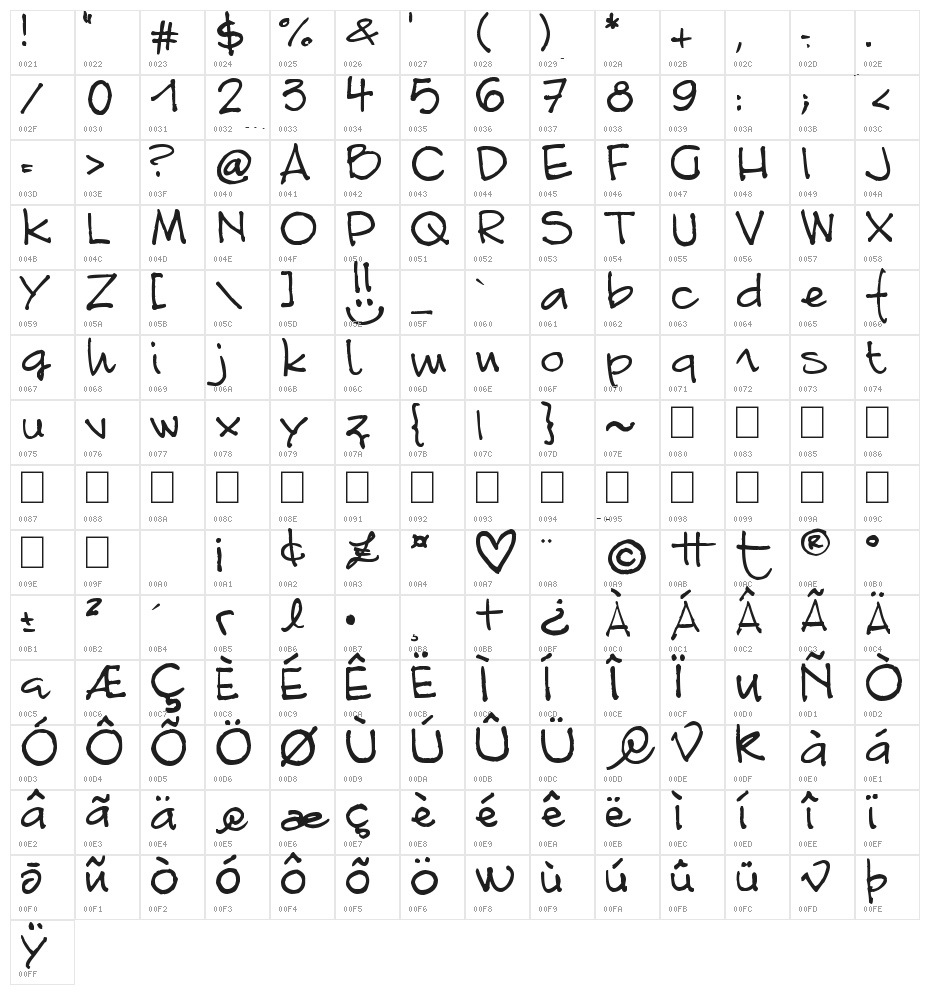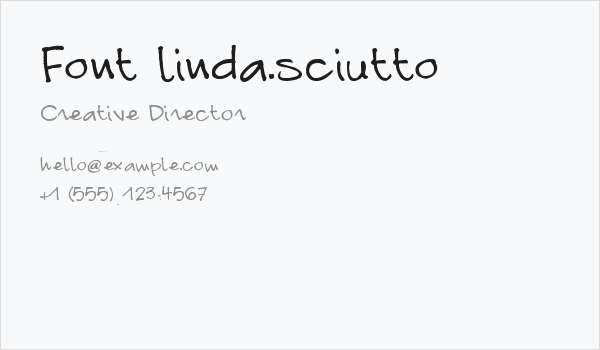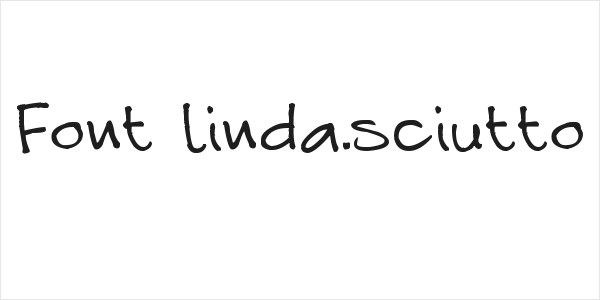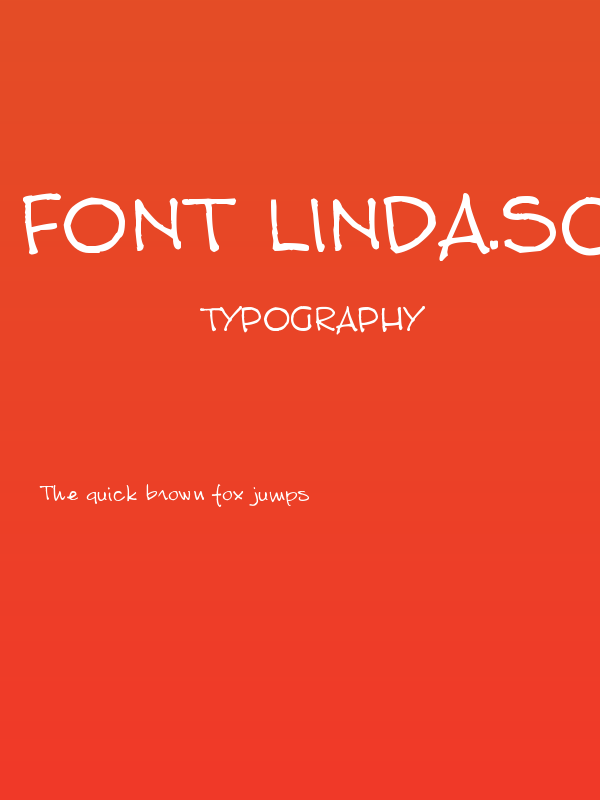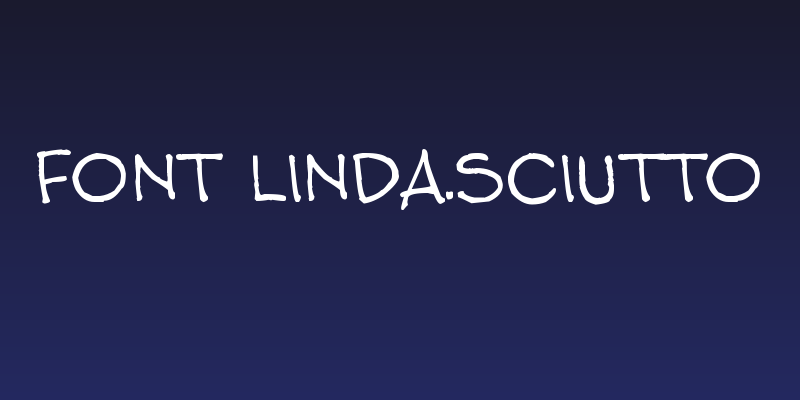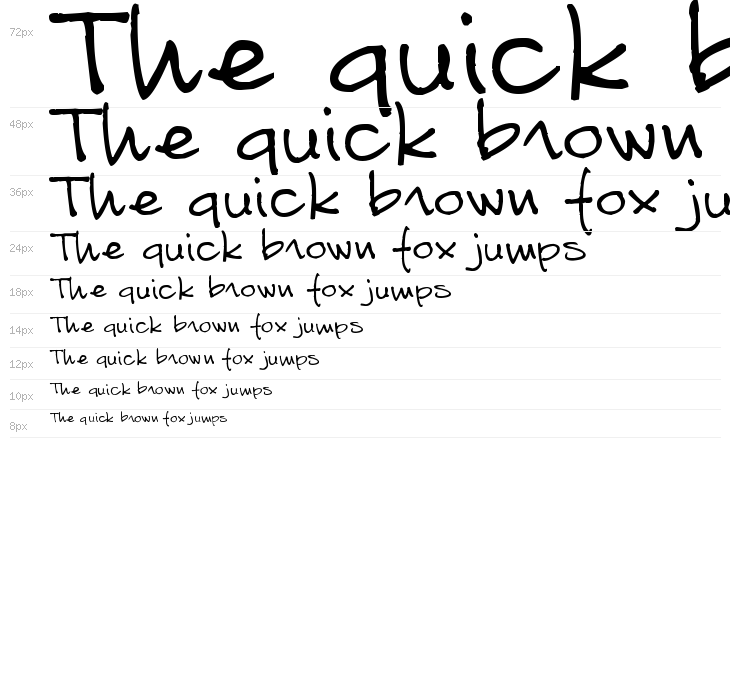
Font linda.sciutto Font
Font linda.sciutto Description
This font exudes a playful and casual handwritten style, characterized by its irregular strokes and slightly uneven baseline. The letters have a spontaneous and lively appearance, with varying thickness that adds a dynamic feel. The uppercase and lowercase letters maintain a consistent style, while the numerals and special characters integrate seamlessly, enhancing the font's cohesive look. Its informal nature makes it ideal for projects that require a personal touch, such as invitations, greeting cards, or creative branding materials.
| Proposed Projects | Ideal for invitations, greeting cards, creative branding, and personal projects. |